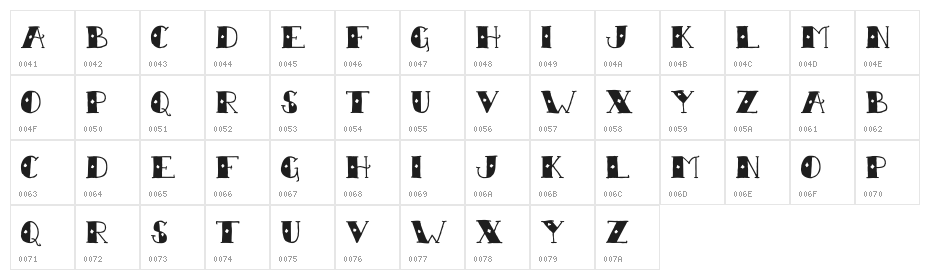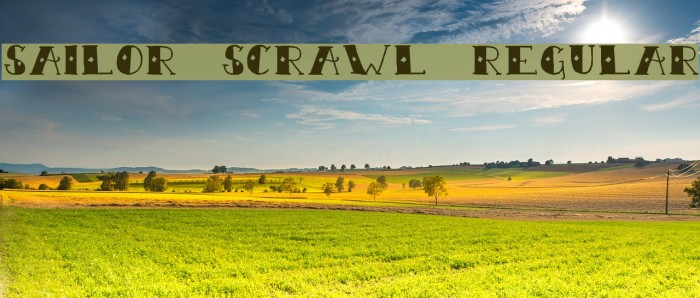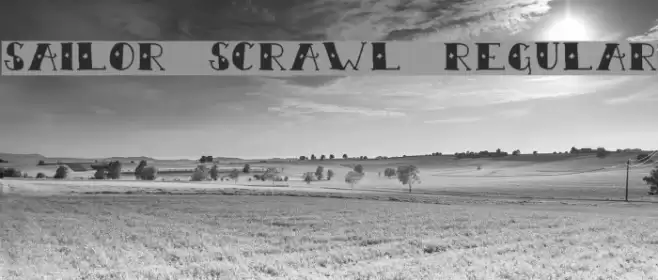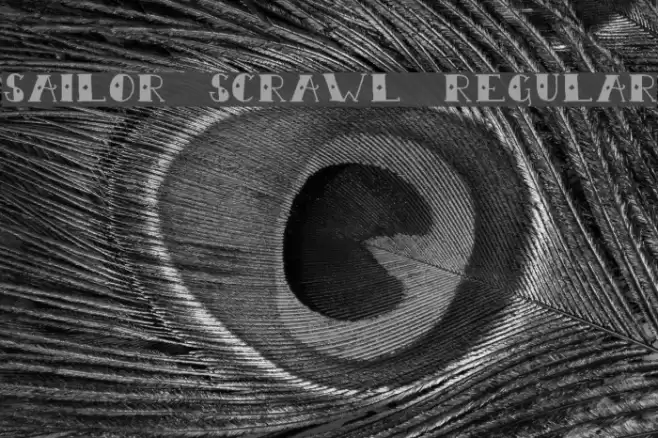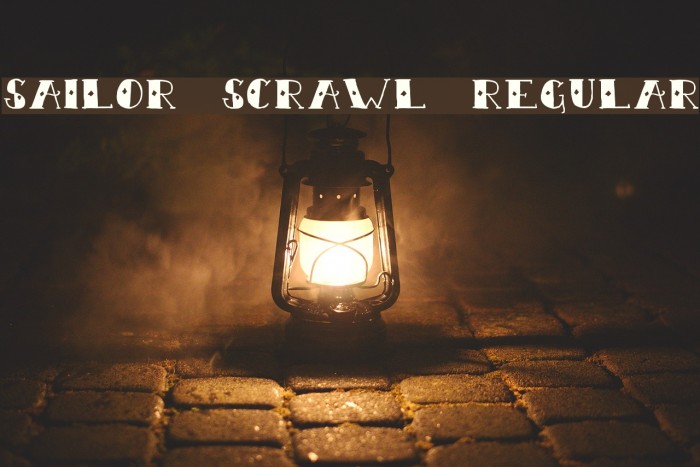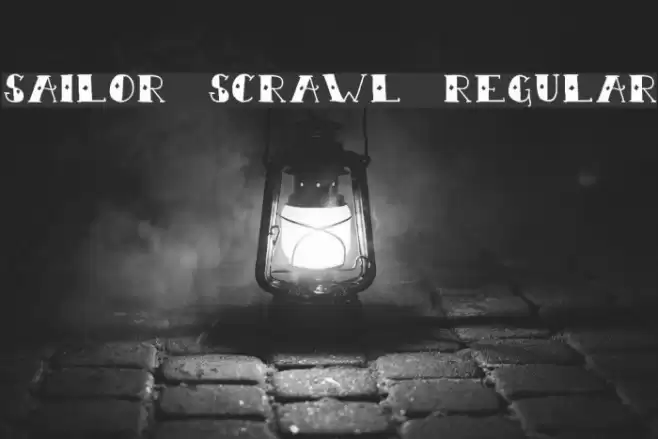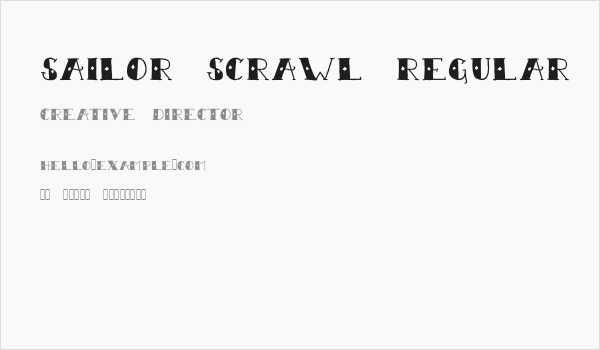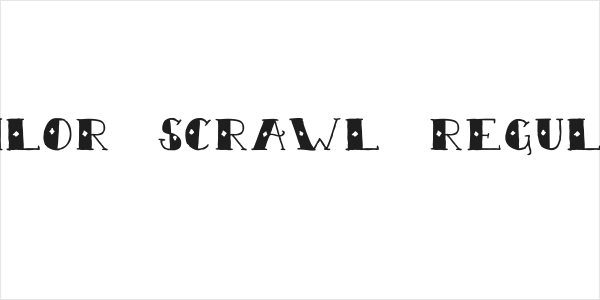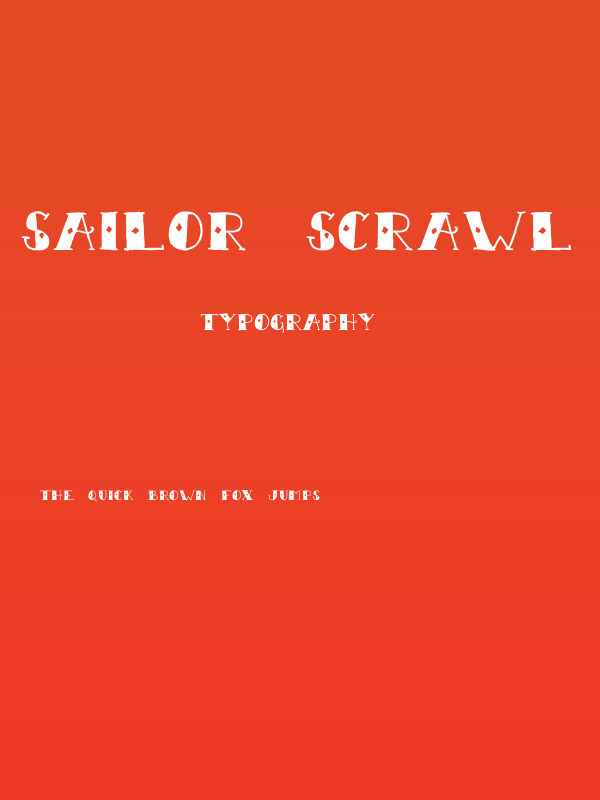
Sailor Scrawl Regular Font
Sailor Scrawl Regular Description
This font features a playful, nautical theme with bold, stylized letters that resemble traditional sailor tattoos. Each character is adorned with small decorative elements, such as dots and lines, adding to its whimsical appearance. The uppercase letters are prominent and eye-catching, while the lowercase letters maintain the same decorative style. The numbers and special characters are consistent with the overall theme, making this font ideal for creative and themed projects. Its unique design captures a sense of adventure and the sea, making it perfect for projects that require a touch of maritime charm.
| Use Case | Headlines, Logos, Themed designs |
| Proposed Projects | Ideal for themed events, maritime posters, children's books, and creative branding projects. |